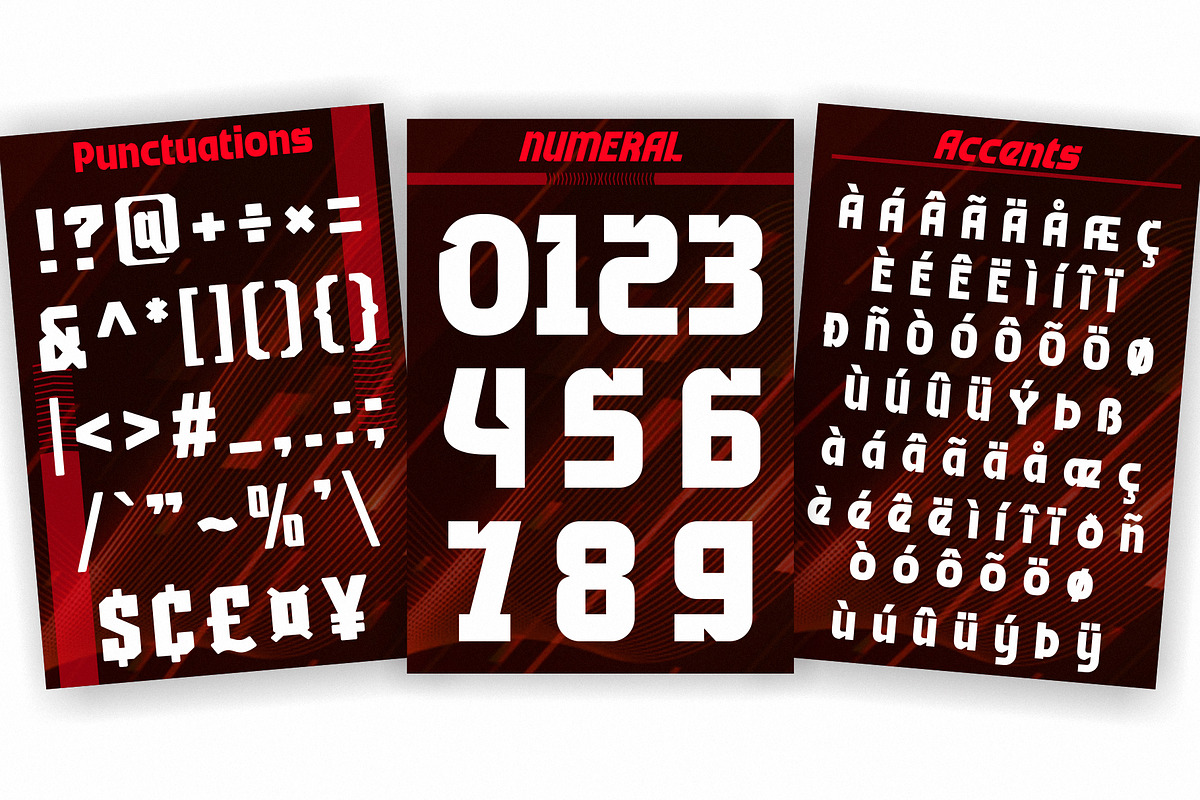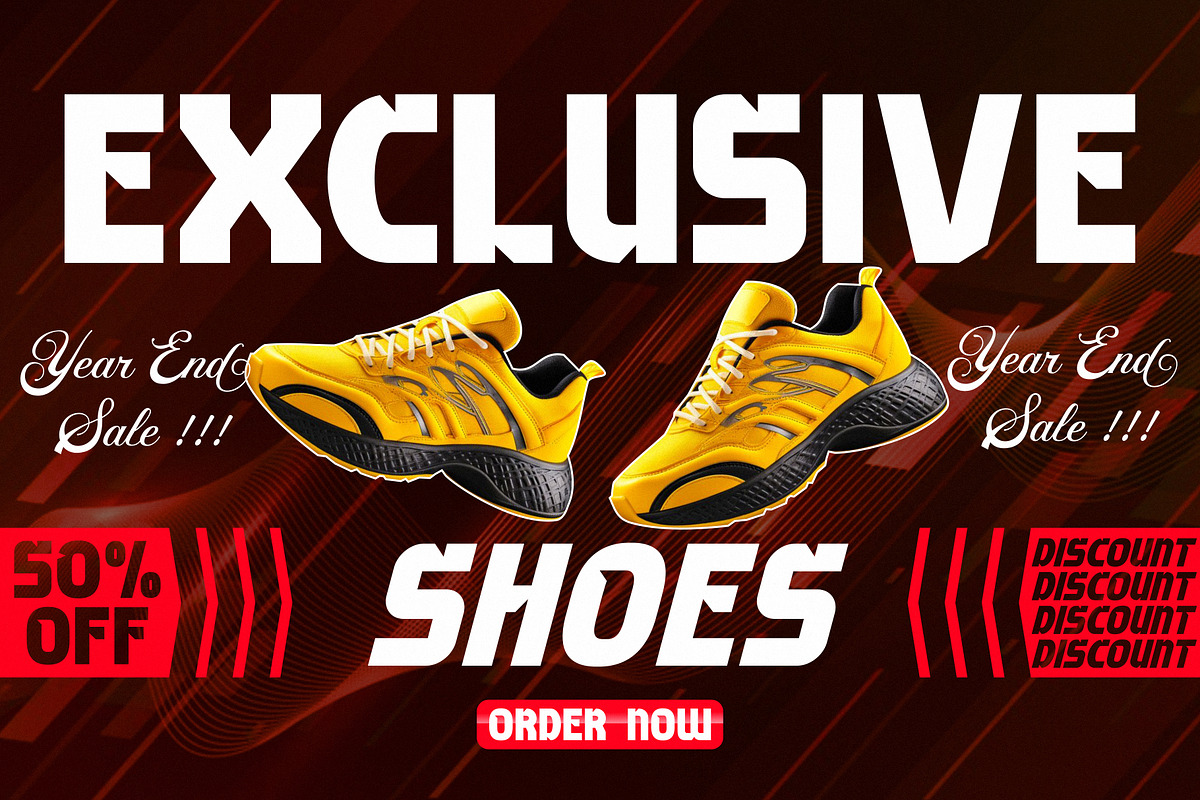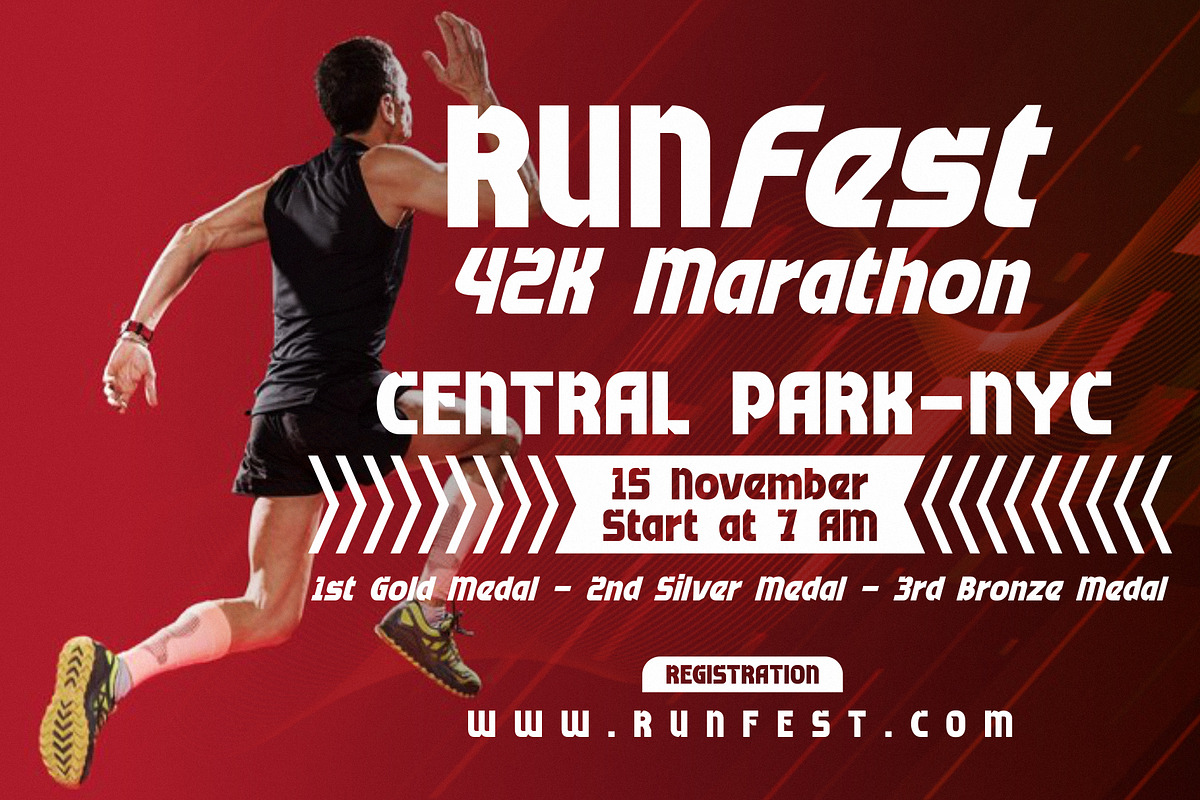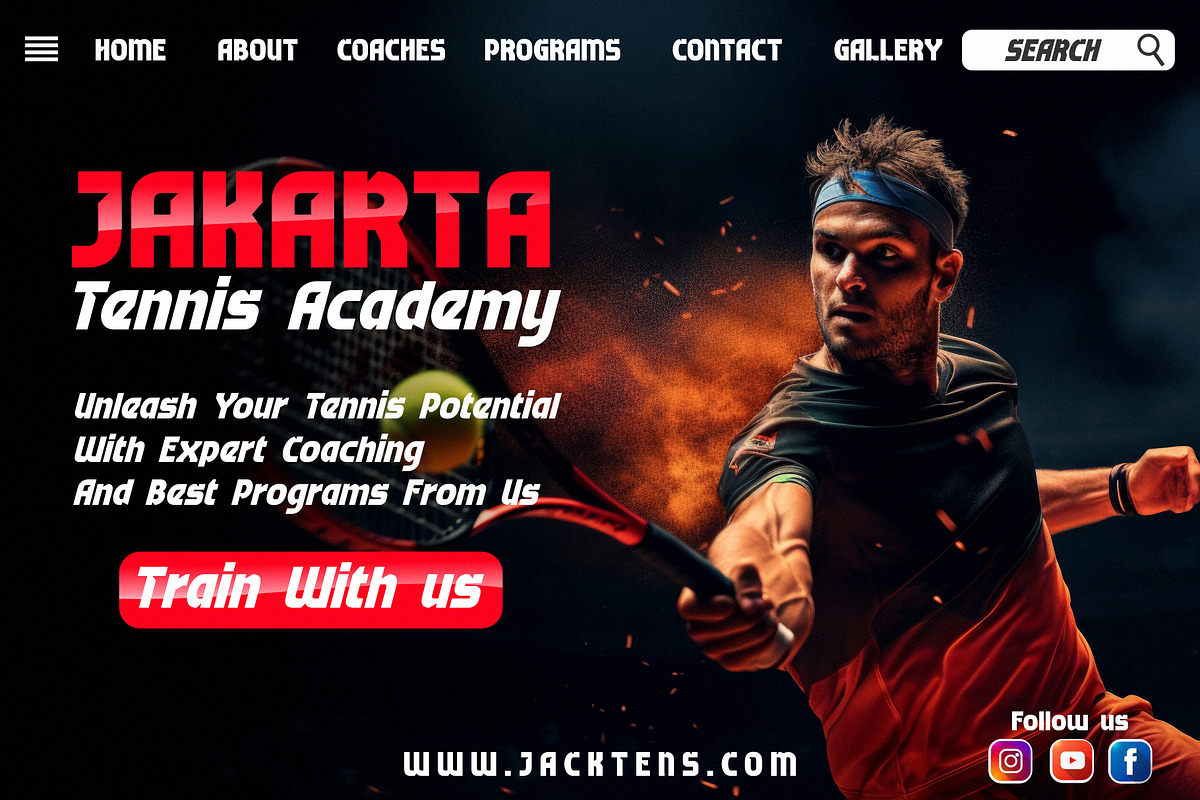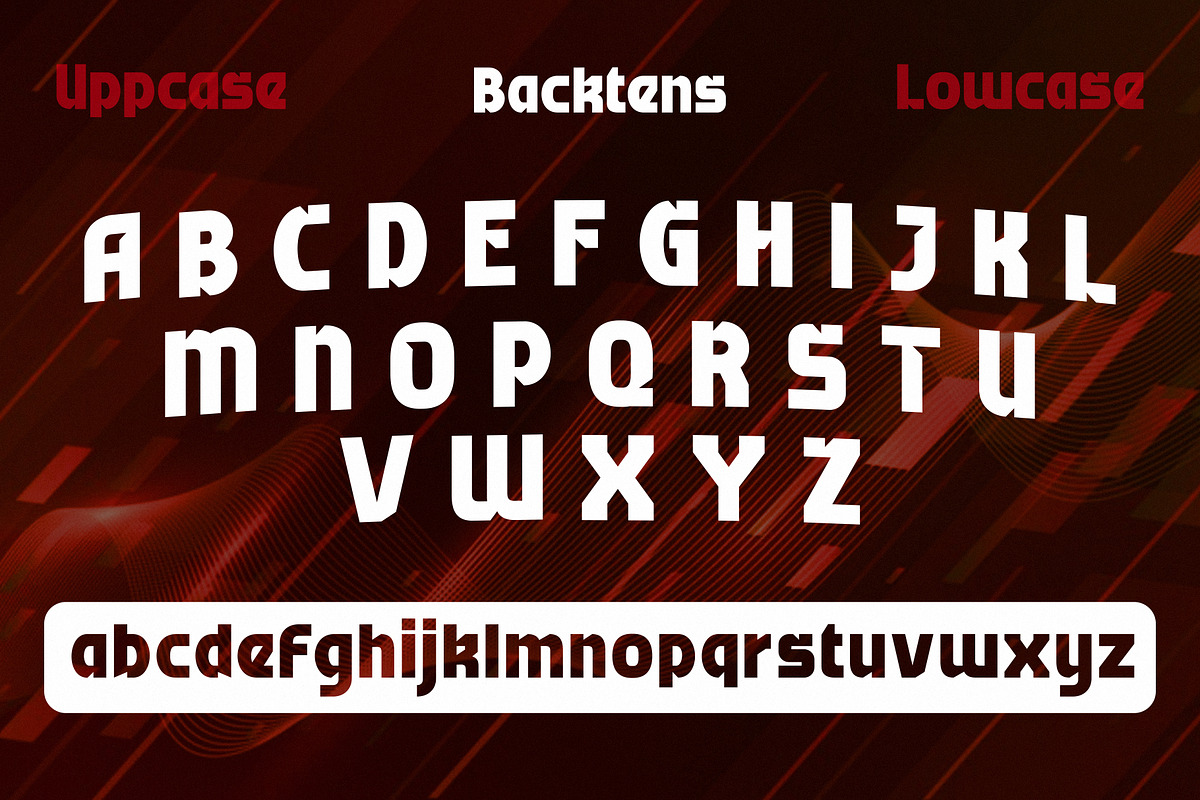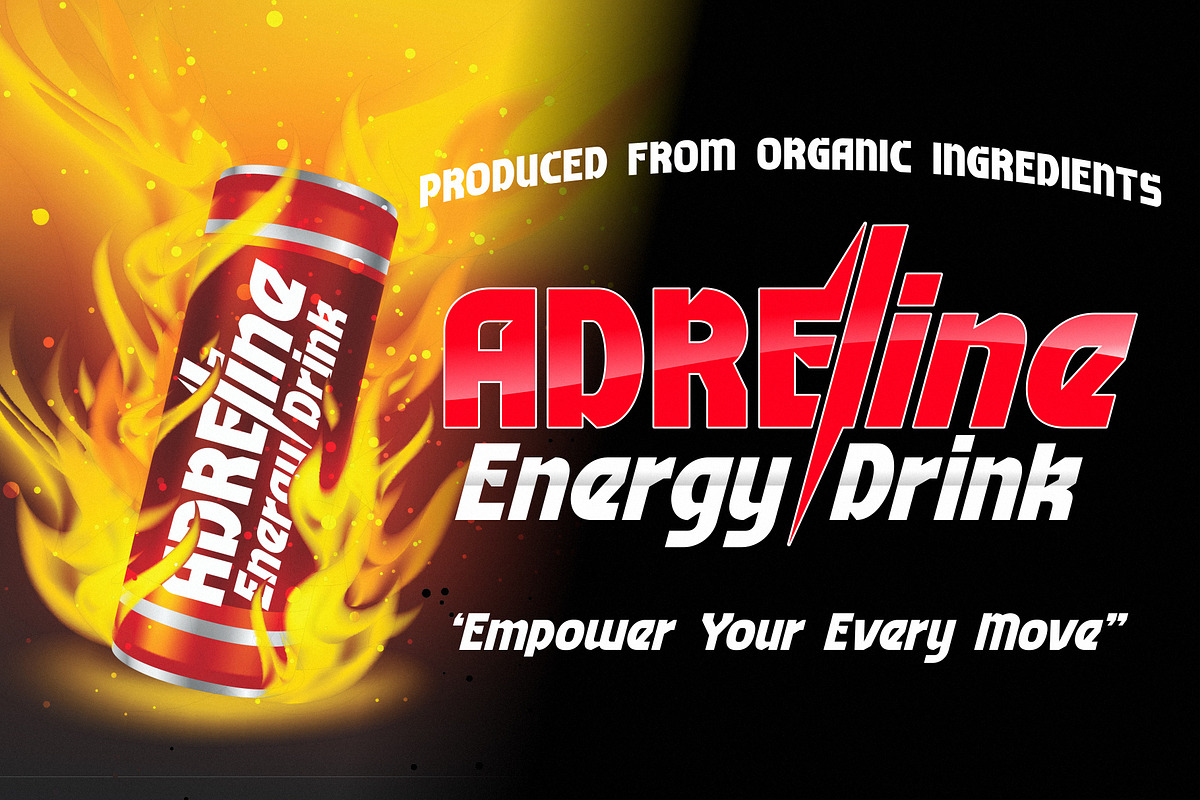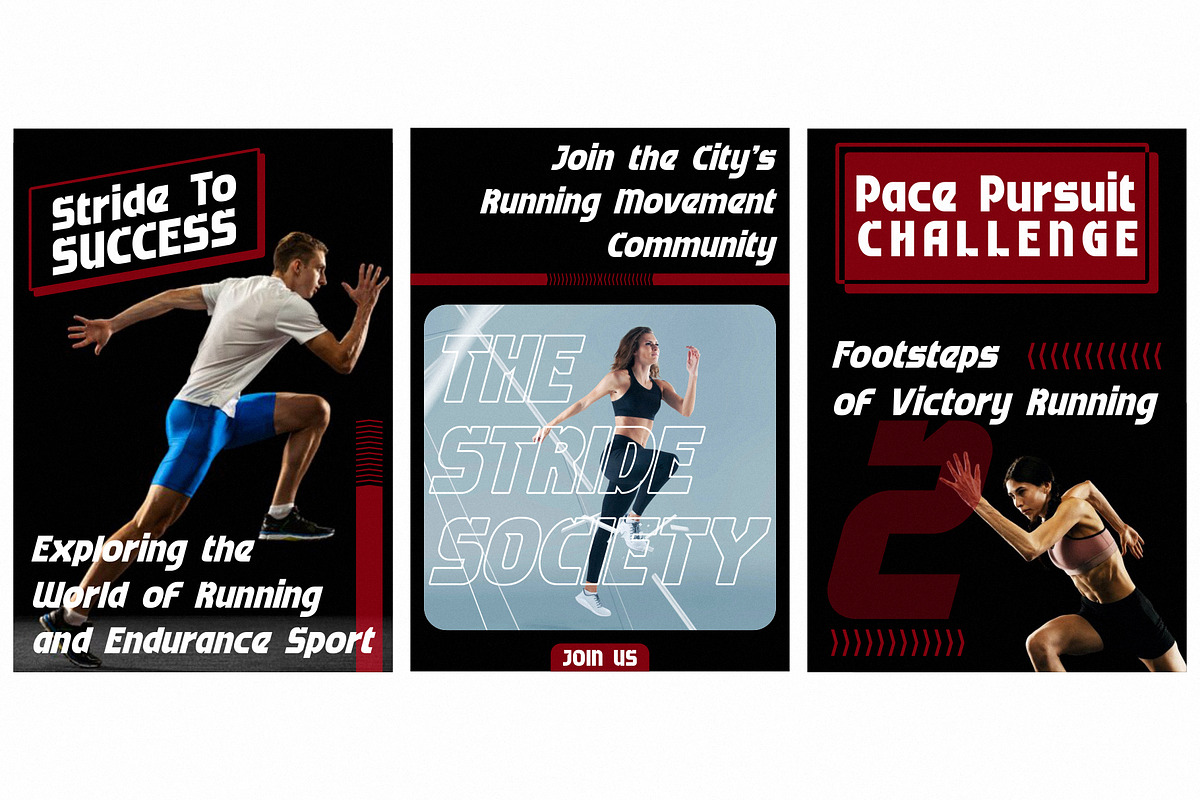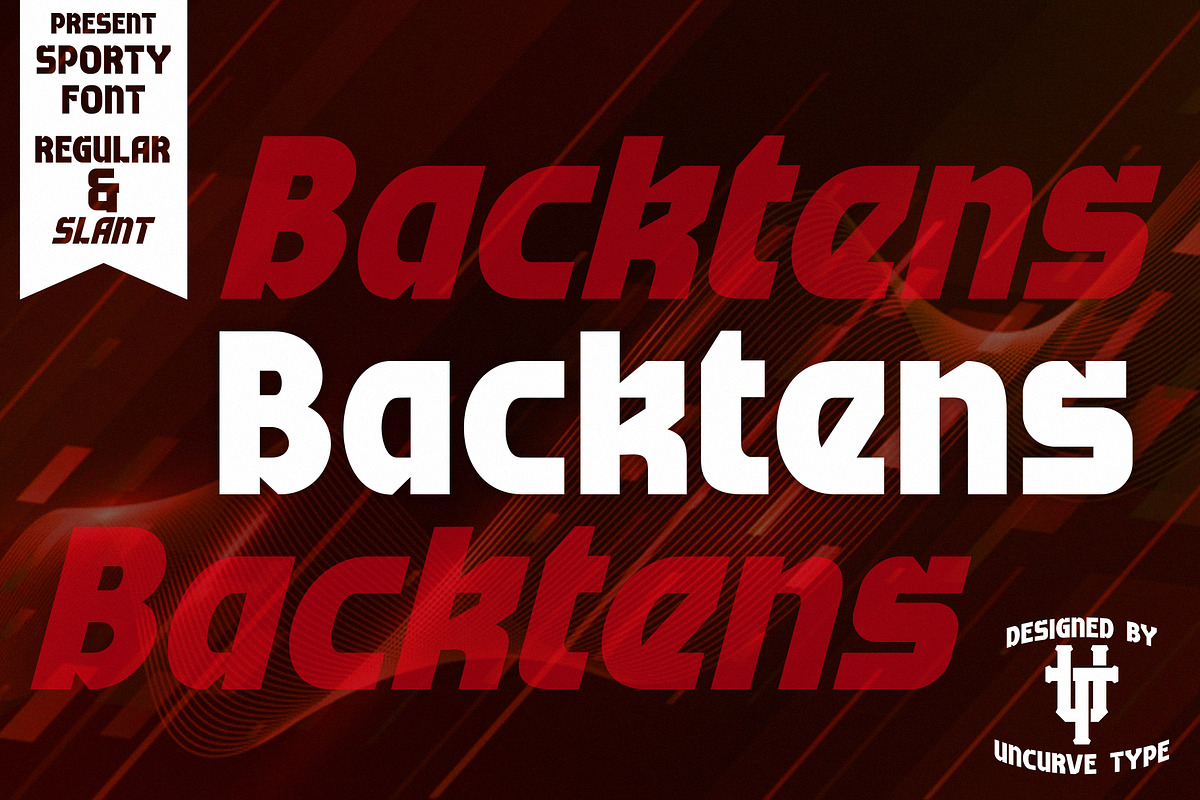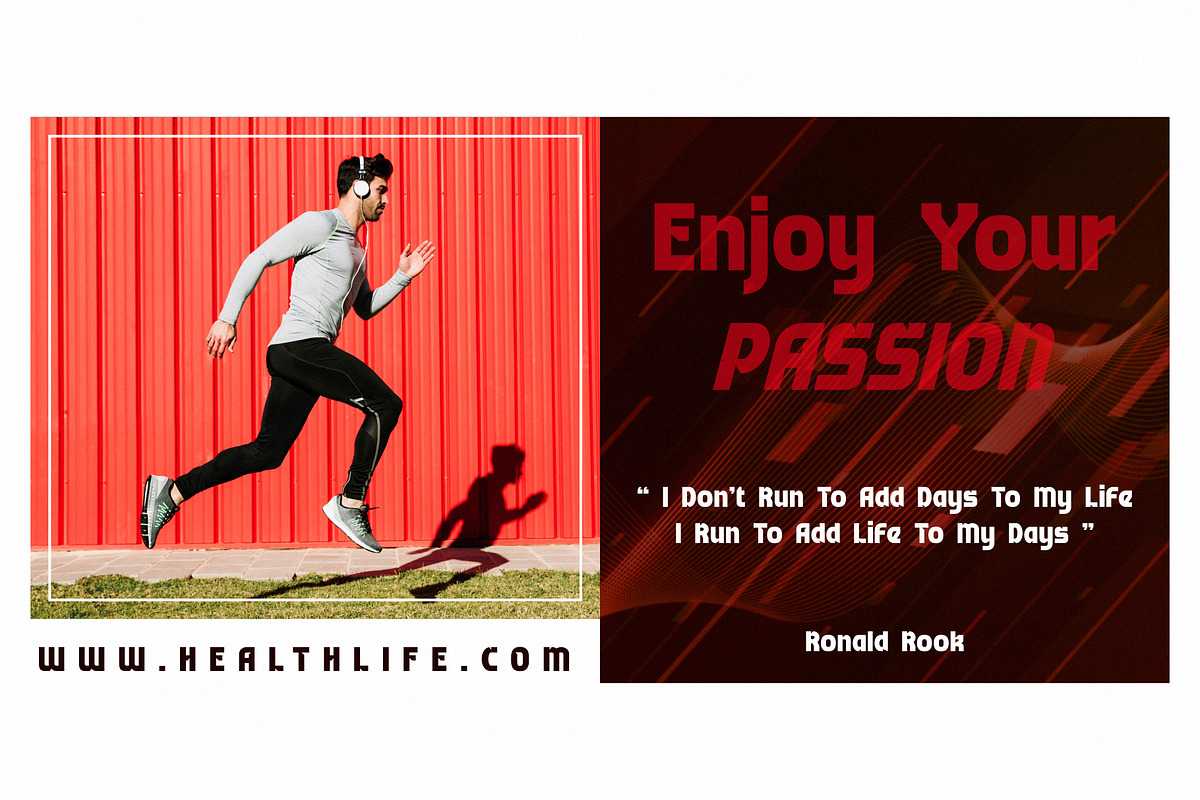
Backtens
Introducing "Backtens," a bold and dynamic font designed to make a powerful impact on any sporty design. With two styles—Regular and Slant—Backtens offers the perfect combination for creating striking visuals with a bold, adrenaline-fueled aesthetic. Inspired by the energy and intensity of competitive sports, Backtens brings an athletic and modern vibe to your projects.
Ideal for authentic logos, sport designs, flyers, posters, and branding, Backtens works seamlessly across various mediums, from magazines, book covers, and shoe designs to apparel, brochures, labels, and product packaging. Whether you're working on a sports event, jerseys, or fitness branding, this font adds a strong, athletic feel to your designs. Perfect for titles, headlines, headers, block elements, and powerful modern t-shirts, Backtens elevates your projects with its bold, confident presence.
From running, rugby, hockey, fitness, and athletic events to formal yet bold designs, Backtens delivers versatility and strength. If you're looking for a font that can bring energy, power, and clarity to your sport-related or modern branding projects, Backtens is the go-to choice.